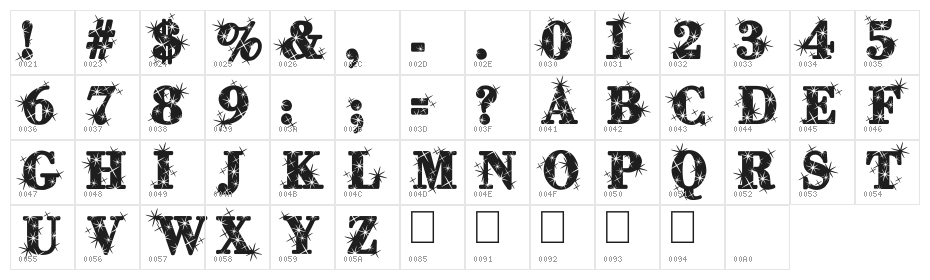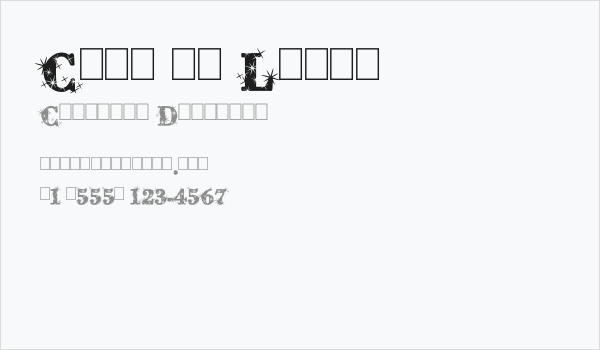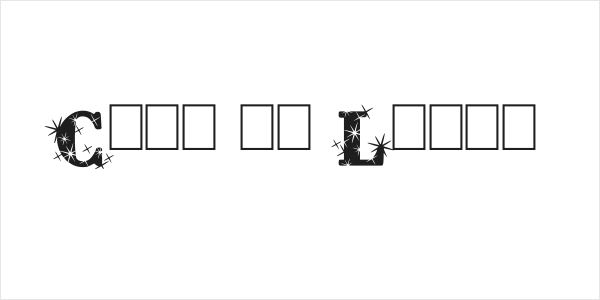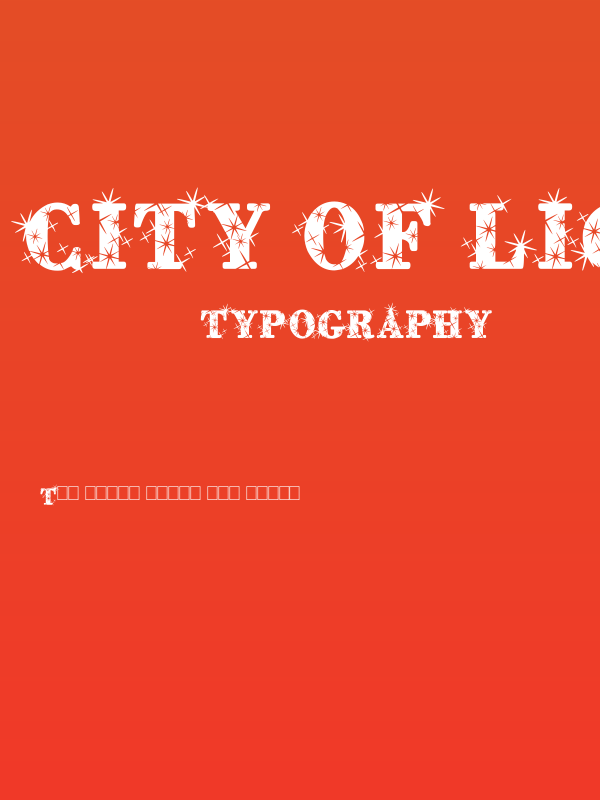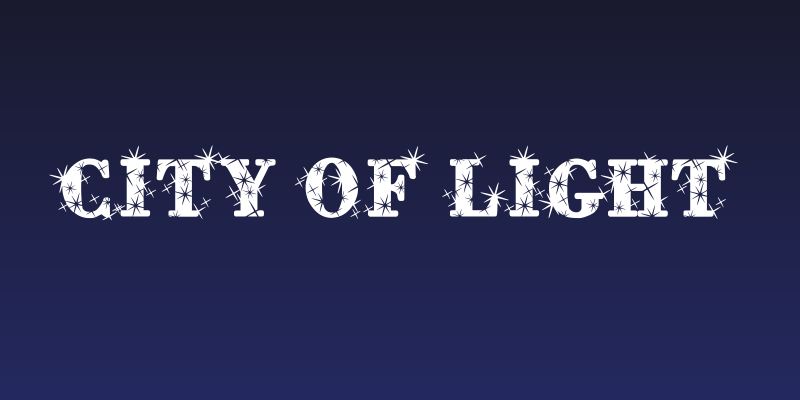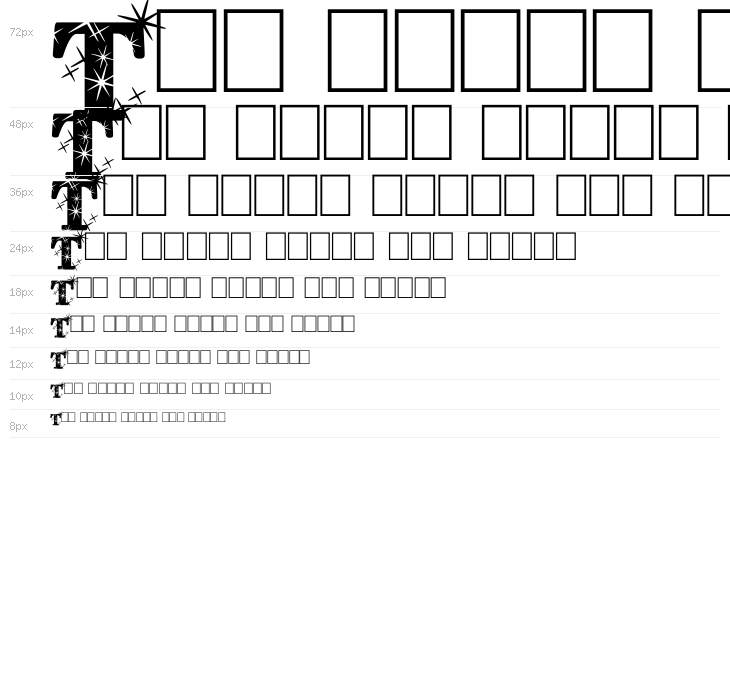
City of Light Font
City of Light Description
This decorative font features bold, uppercase letters adorned with star-like embellishments, creating a dazzling and eye-catching effect. The characters are robust and filled with intricate star patterns that give them a festive and energetic appearance. The numbers and special characters follow the same design, ensuring consistency across all glyphs. The font's unique style makes it ideal for projects that require a touch of glamour and excitement. Its boldness and decorative elements make it stand out, perfect for capturing attention in various design contexts.
| Proposed Projects | Ideal for party invitations, festive banners, event posters, and any project needing a glamorous touch. |